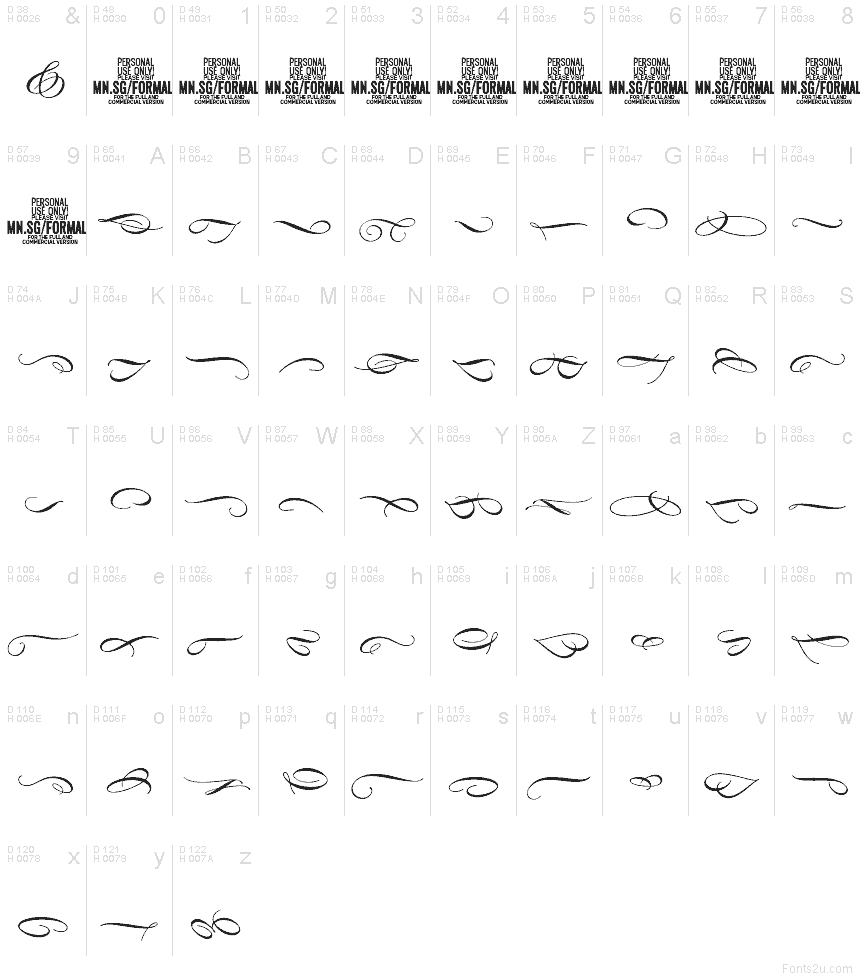
Formale Swash Regular
Formale Swash font, designed by Mans Greback, is a calligraphic masterpiece characterized by its elegant and decorative style. Flowing and intricate in its design, this ornamental typeface offers a perfect complement to the Formale script font. Its graceful appearance brings an artistic touch suitable for projects that demand sophistication.
As a free calligraphy font, Formale Swash opens unlimited possibilities for various applications like event invitations, greeting cards, logos, wedding stationery, branding materials, book covers, posters, certificates, luxury packaging designs and many others which can be enriched by typographic beauty.